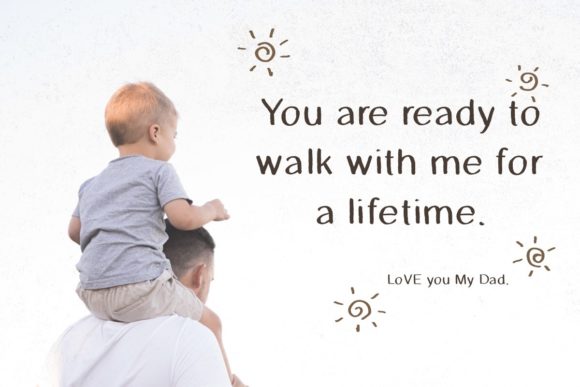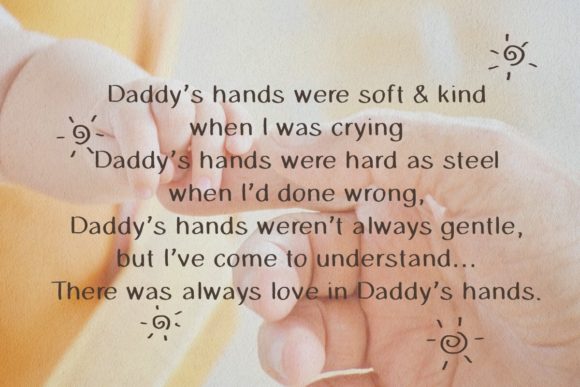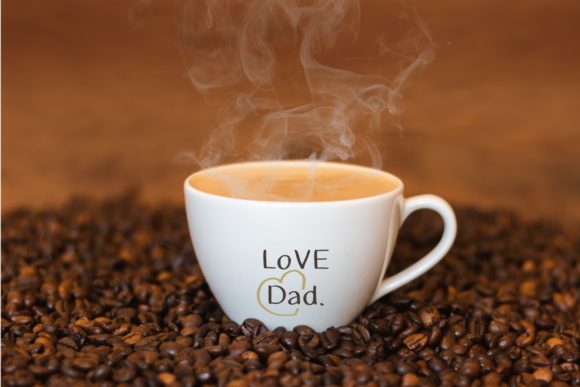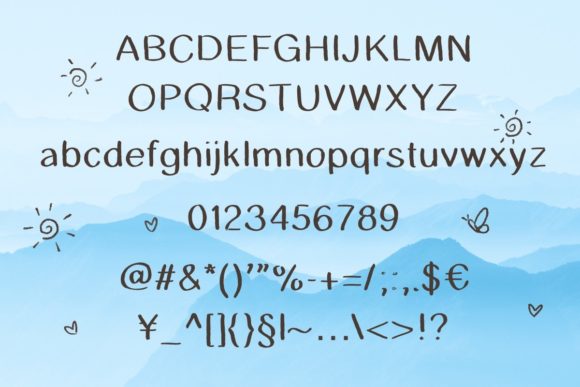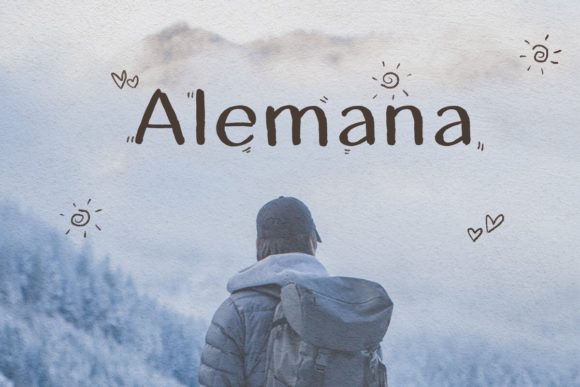
Alemana Font: The Perfect Handwritten Choice for Designers and Crafters
In the world of typography, Alemana Font stands out as a clear and sleek handwritten font that has captured the hearts of designers and crafters alike. With its well-spaced letters and friendly, clean style, Alemana is the perfect choice for a wide range of design projects, from children’s designs to websites, and everything in between.
What Makes Alemana Font So Special?
Alemana Font is a versatile typeface that boasts a unique combination of characteristics that make it an ideal choice for various design applications. Here are some of the key features that set Alemana apart:
- Clear and Sleek Design: Alemana’s clean and sleek design makes it perfect for designs that require a modern and sophisticated look.
- Well-Spaced Letters: The font’s well-spaced letters ensure that text remains legible, even at small sizes, making it ideal for body text and captions.
- Friendly and Approachable Style: Alemana’s friendly and approachable style makes it perfect for designs that require a personal touch, such as children’s designs, social media posts, and planners.
Use Cases for Alemana Font
Alemana Font is an incredibly versatile typeface that can be used in a wide range of design projects, including:
- Children’s Designs: Alemana’s friendly and playful style makes it perfect for children’s books, educational materials, and kids’ party invitations.
- T-Shirts and Apparel: The font’s clean and sleek design makes it ideal for t-shirt designs, hoodies, and other apparel.
- Mugs and Stationery: Alemana’s well-spaced letters and friendly style make it perfect for mug designs, stationery, and other home decor items.
- Magazines and Newsletters: The font’s legibility and clean design make it suitable for body text in magazines, newsletters, and other publications.
- Social Media Posts: Alemana’s friendly and approachable style makes it perfect for social media posts, including Facebook, Instagram, Twitter, and more.
- Planners and Journals: The font’s clean and organized design makes it ideal for planners, journals, and other organizers.
- Websites and Blogs: Alemana’s sleek and modern design makes it perfect for website headers, titles, and body text.
Why Designers and Crafters Love Alemana Font
Designers and crafters love Alemana Font for its versatility, legibility, and friendly style. Here are some reasons why:
- Easy to Read: Alemana’s well-spaced letters and clean design make it easy to read, even for extended periods.
- Highly Versatile: The font’s versatility makes it suitable for a wide range of design projects, from children’s designs to websites.
- Unique and Creative: Alemana’s friendly and approachable style adds a touch of personality to any design project.
Tips and Tricks for Using Alemana Font
Here are some tips and tricks for getting the most out of Alemana Font:
- Pair with Other Fonts: Alemana pairs well with other fonts, including sans-serif and serif fonts.
- Experiment with Colors: The font’s clean design makes it suitable for a wide range of colors and color combinations.
- Use for Body Text: Alemana’s legibility makes it perfect for body text, including paragraphs and captions.
In conclusion, Alemana Font is a clear and sleek handwritten font that is perfect for designers and crafters looking for a versatile and legible typeface. With its well-spaced letters, friendly style, and clean design, Alemana is suitable for a wide range of design projects, from children’s designs to websites. Whether you’re a seasoned designer or a crafter looking for a unique touch, Alemana Font is an excellent choice.